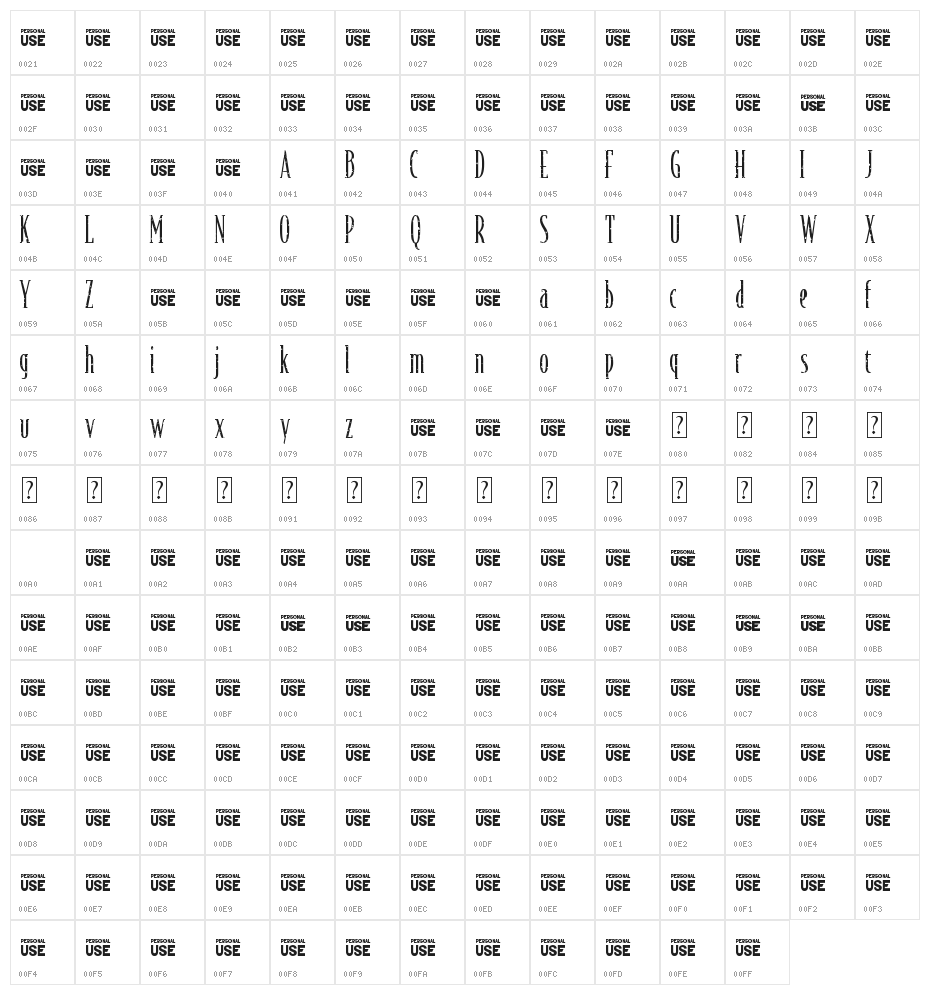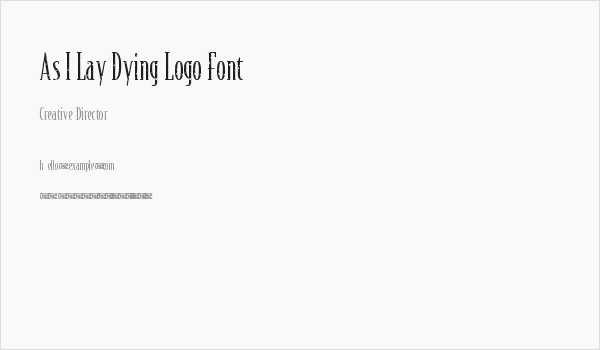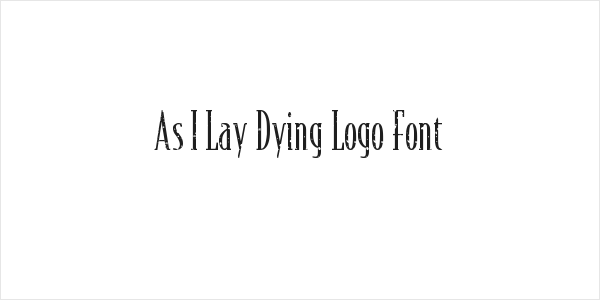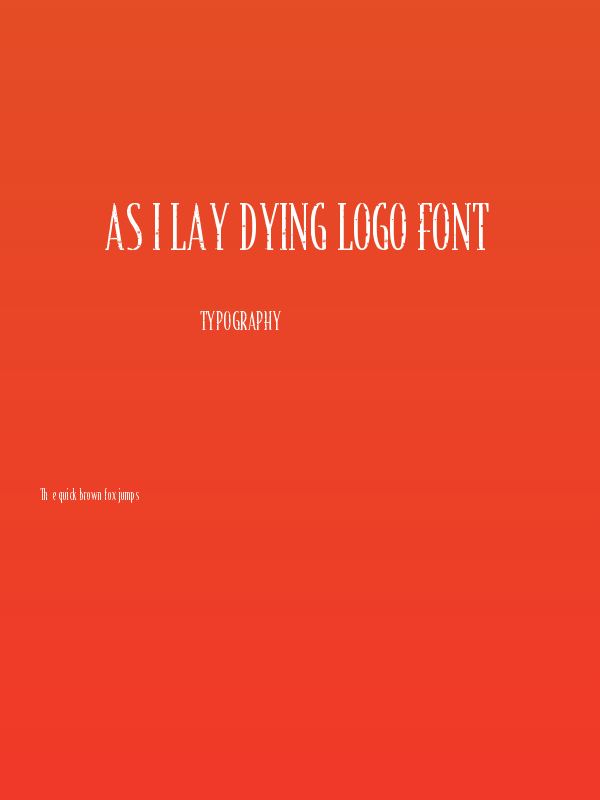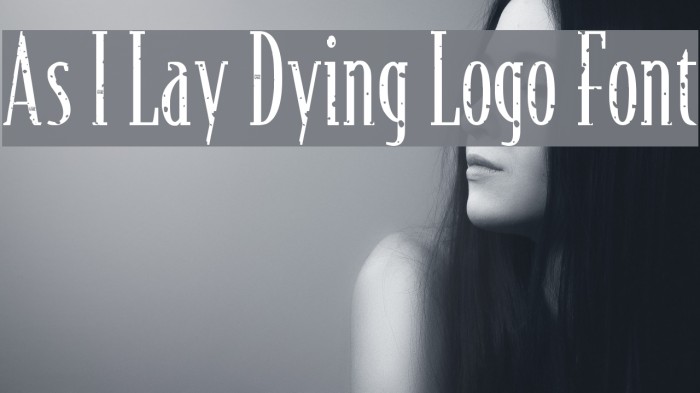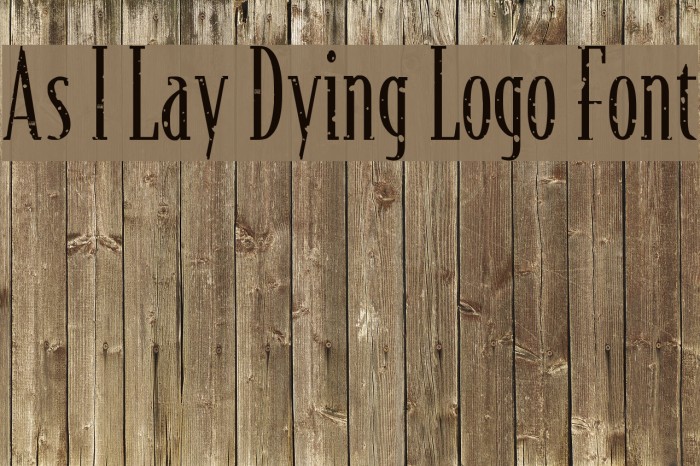
As I Lay Dying Logo Font Font
As I Lay Dying Logo Font Description
This font features a distressed, grunge aesthetic with a tall and narrow structure. The uppercase letters are elongated with sharp serifs, giving a dramatic and edgy appearance. The lowercase letters maintain a consistent style, complementing the uppercase with a slightly more condensed form. The texture appears worn and weathered, adding a vintage and rugged feel. This font is particularly striking due to its unique character and bold presence, making it ideal for impactful designs. The overall style is reminiscent of classic rock or metal band logos, with an emphasis on a rebellious and bold statement.
| Width | Condensed |
| Overall Style | Vintage, Grunge |
| Use Case | Logos, Headlines |
| Proposed Projects | Ideal for music album covers, band logos, posters, and edgy branding projects. |